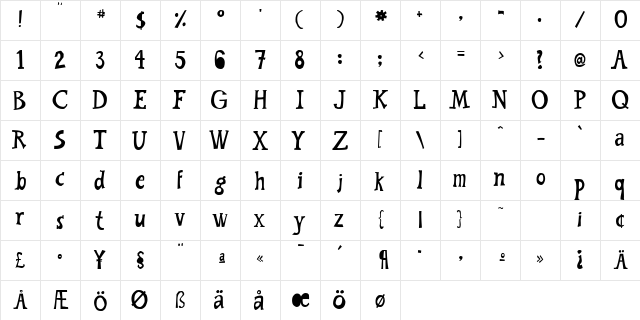
PETT_SER Regular
Design Context for PETT_SER Typeface
PETT_SER takes a measured approach to typography — its balanced proportions and neutral character make it a reliable workhorse for both digital and print work.